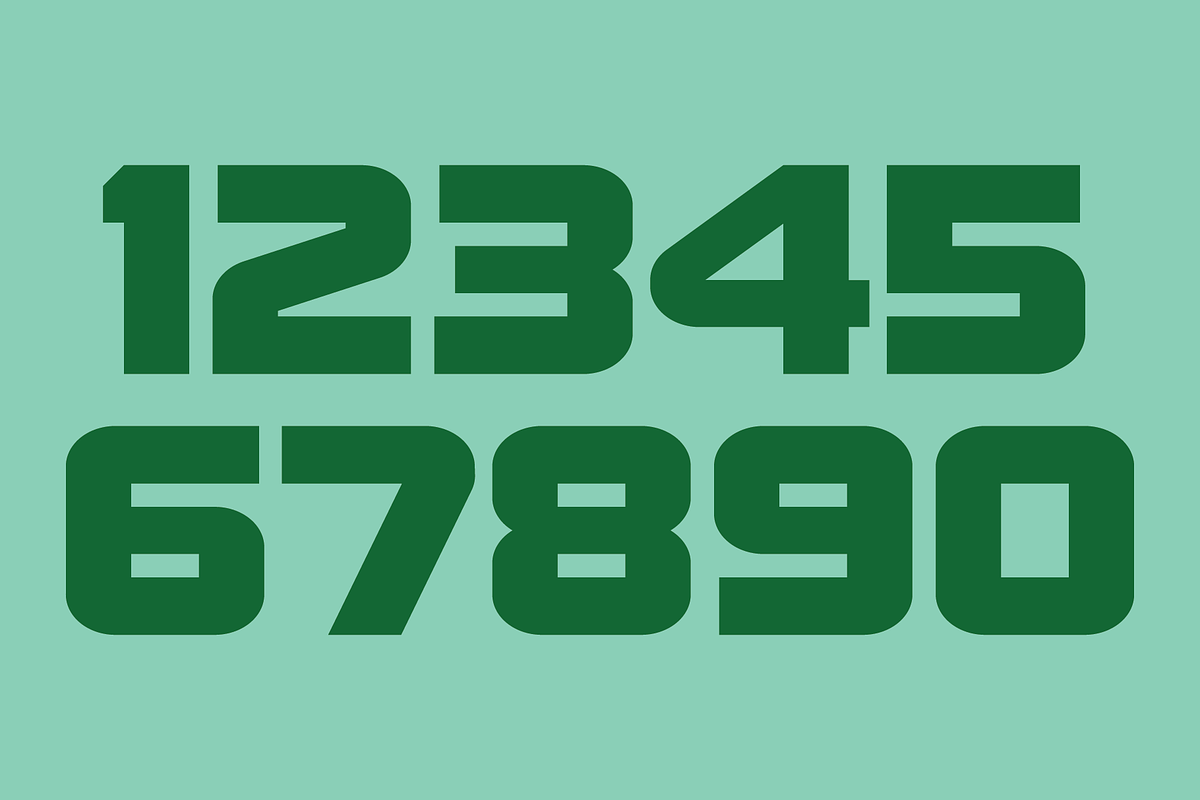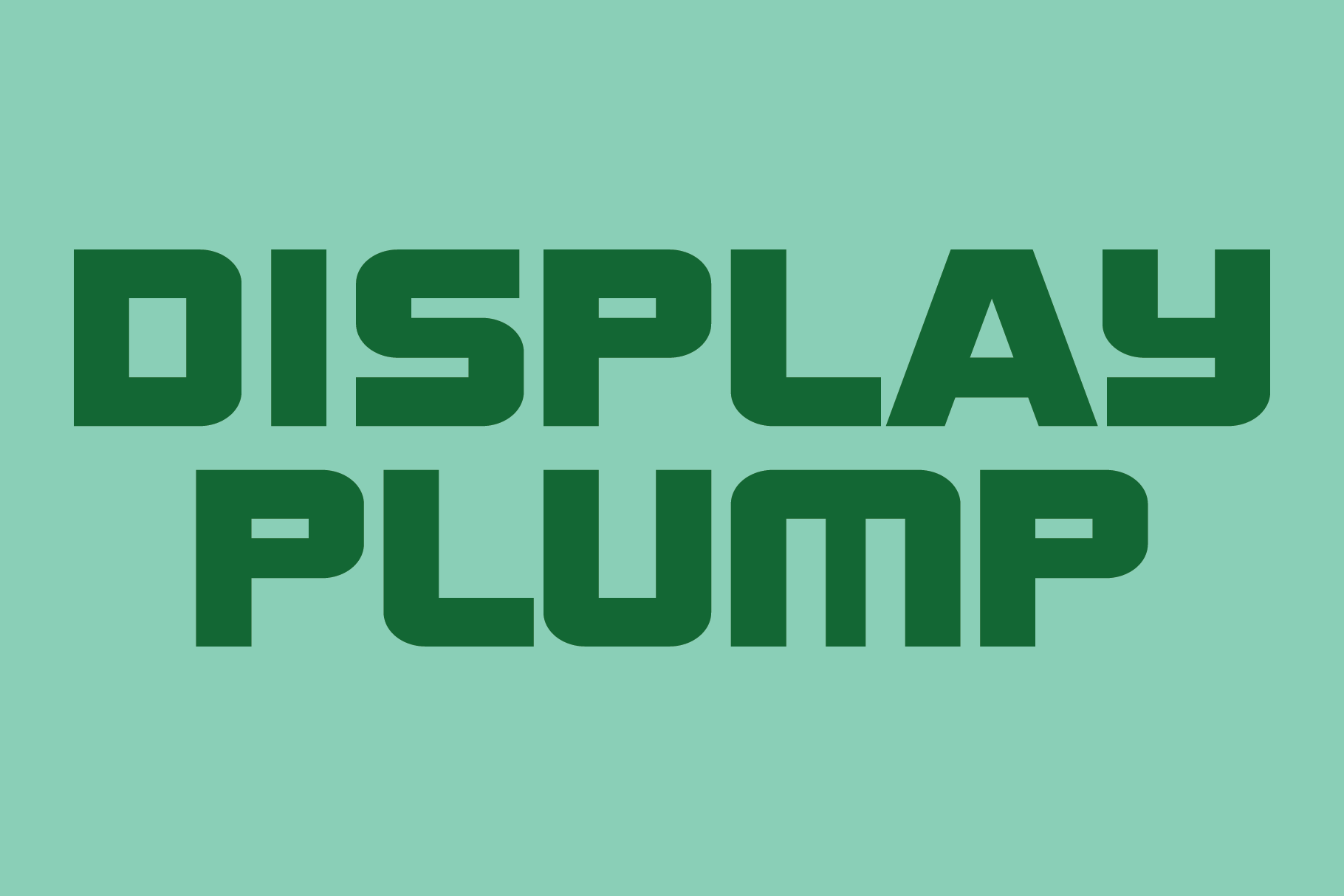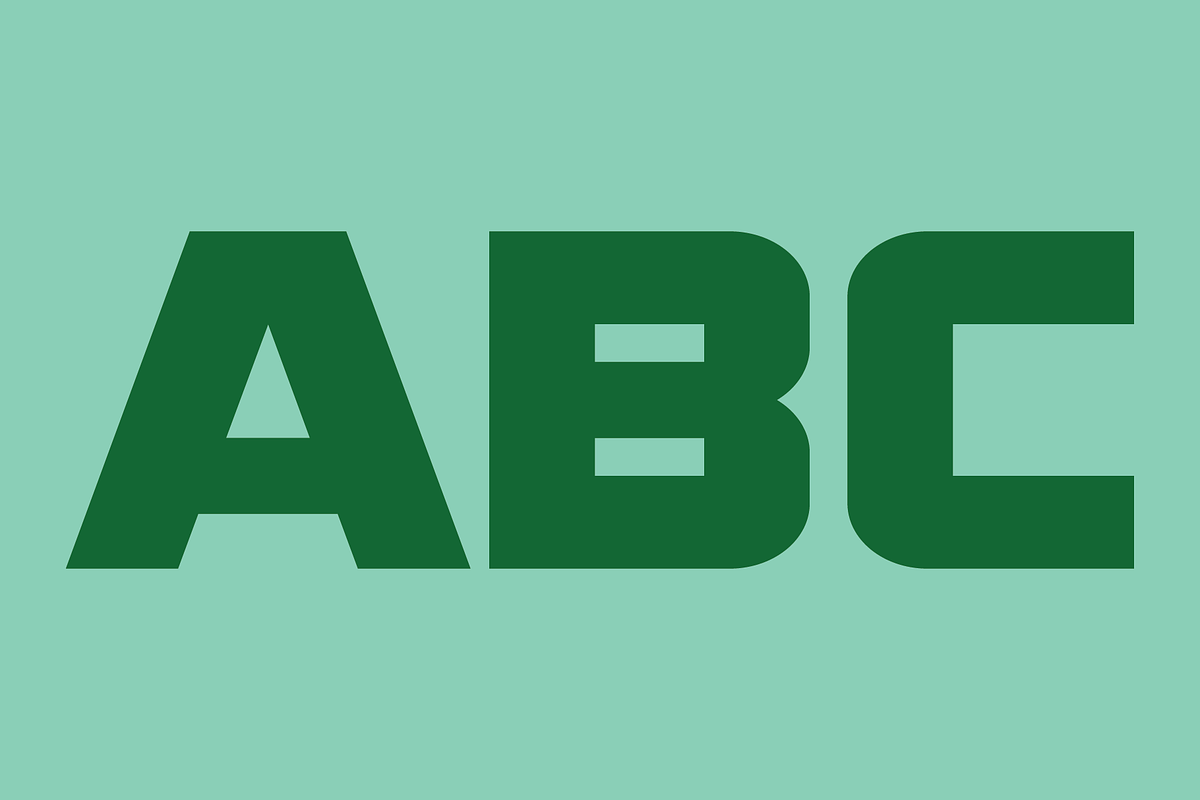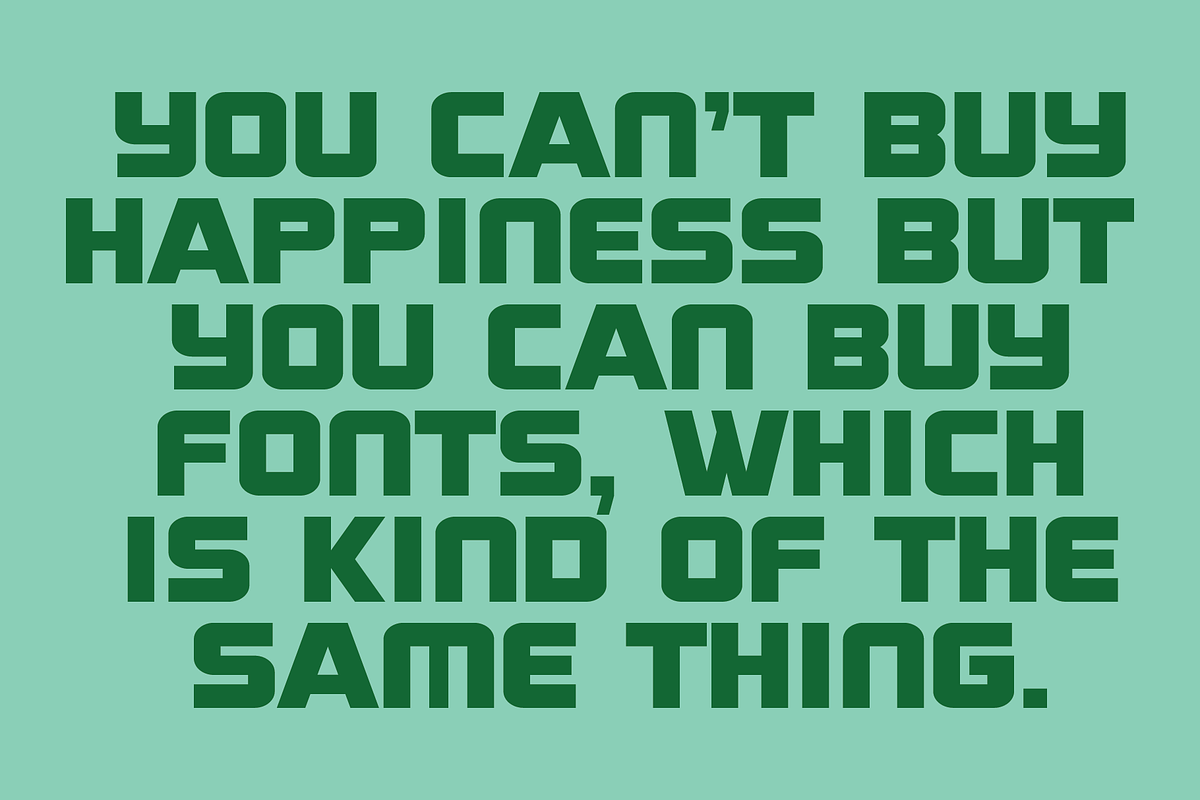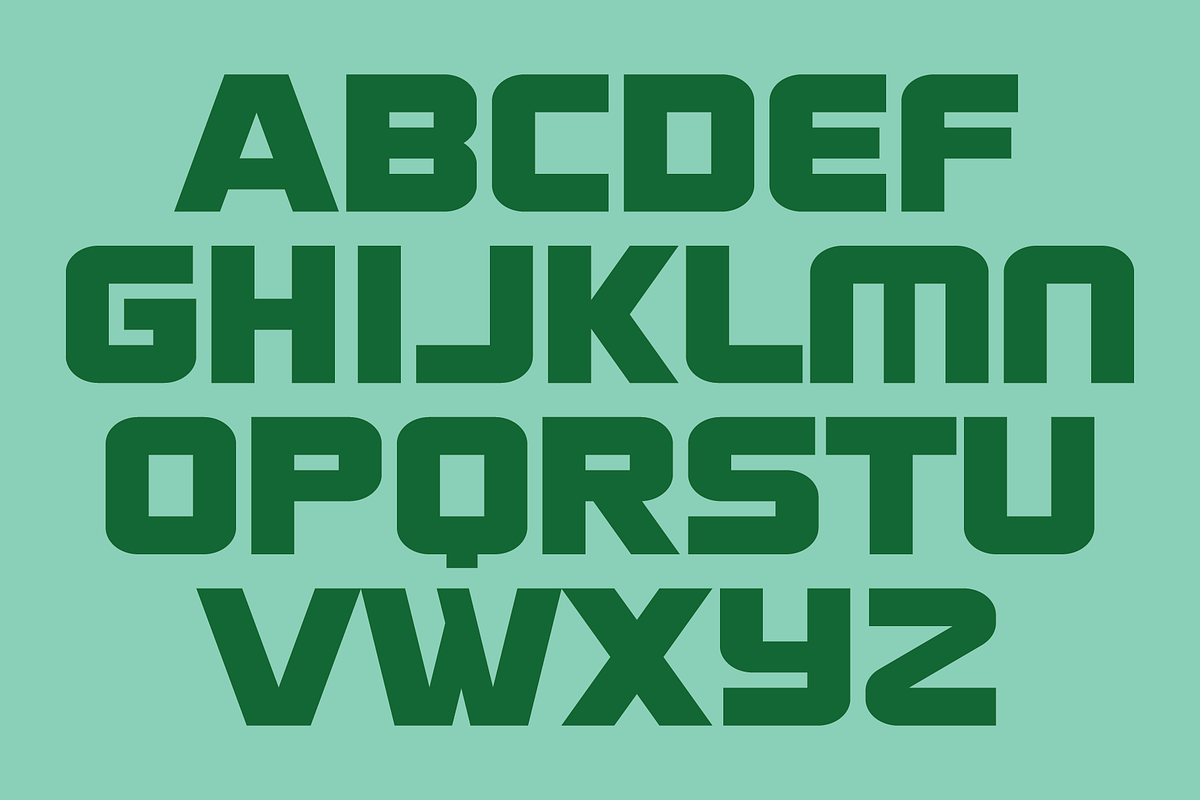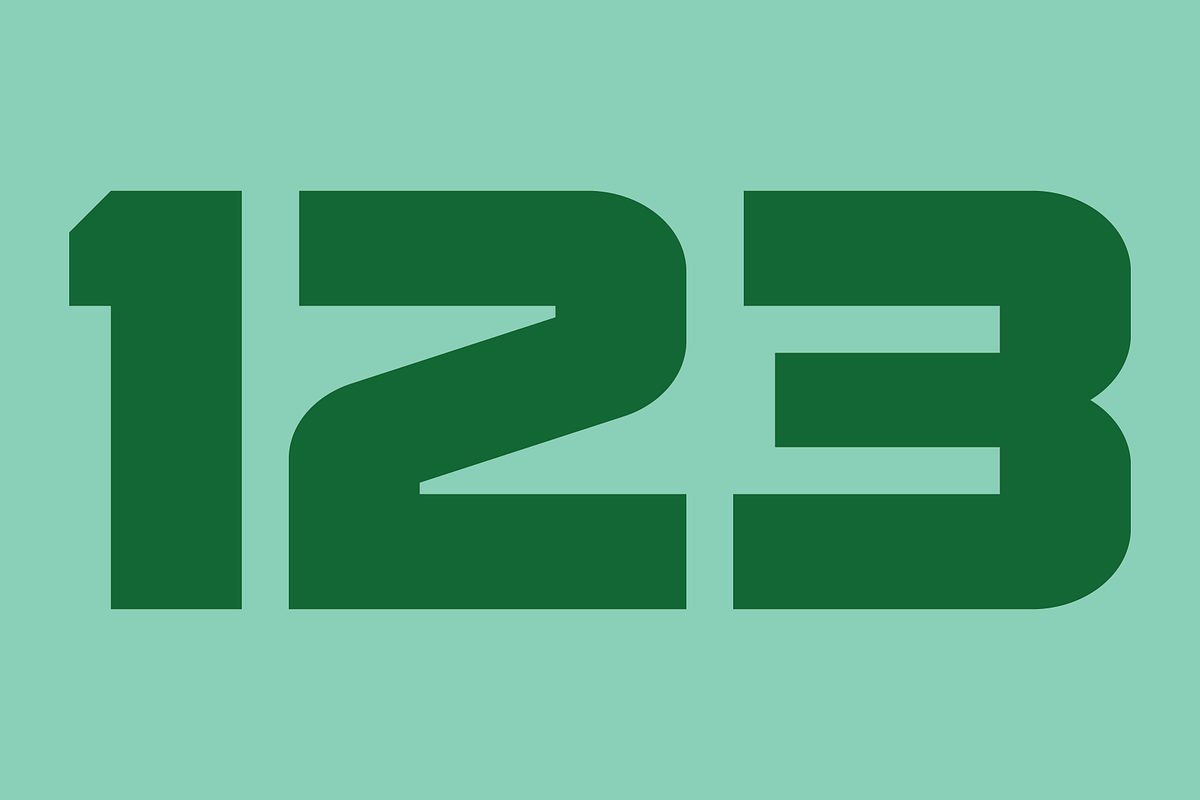
Display Plump Font
Display Plump is not intended for text use. It was designed specifically for display, headline, logotype, branding, and similar applications. It has an uppercase alphabet, numbers, dollar, pound and euro signs, and basic punctuation. For convenience, the uppercase alphabet characters are repeated under the character set keys.